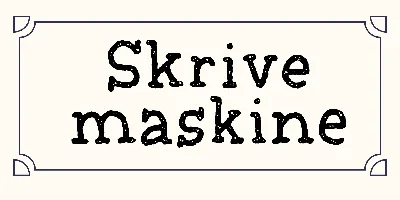
Skrivemaskine Font
This nostalgic typeface excels in various vintage applications including writer's café branding, literary journal mastheads, detective story covers, newsroom-themed designs, secretarial service logos, vintage office décor, manuscript presentations, and retro correspondence designs. The Skrivemaskine Font authentically recreates the charm of mechanical typewriters with its slightly imperfect letterforms that evoke the satisfying click-clack of keys striking paper through inked ribbon.
What makes this font truly exciting is its meticulous attention to typewriter authenticity, including subtle irregularities and mechanical quirks that make digital text feel genuinely typed on vintage machinery. The faithfully reproduced characters feature uneven ink distribution, slight misalignments, and characteristic typewriter spacing that transport viewers to smoke-filled newsrooms and writer's studies. Its distinctive personality combines journalistic urgency with literary romance, creating typography that tells stories before the words are even read.
The Skrivemaskine Font family includes mechanically-inspired variations: Regular, Bold, Light, Rough, and Clean styles, plus authentic strikethrough options. Each family member maintains the signature typewriter character while providing flexibility for creating designs that range from pristinely typed to heavily used machine effects.